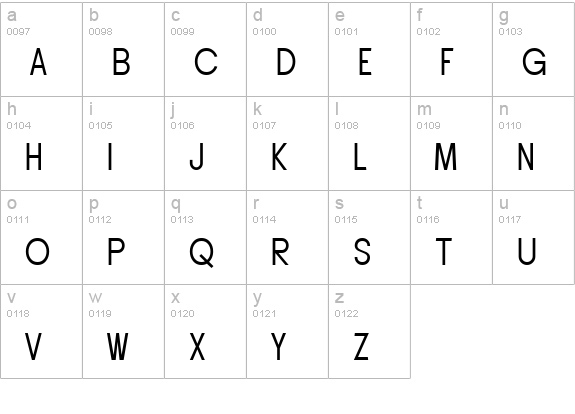
SF Buttacup Lettering Font Details
SF Buttacup Lettering is a stunning display font that exudes elegance and charm. Its unique letterforms are carefully crafted to capture the essence of classic lettering styles, while adding a contemporary twist. With its fluid lines and graceful curves, this font is perfect for adding a touch of sophistication to any design project. What sets SF Buttacup Lettering apart is not only its exceptional design, but also the fact that it is available for free. Yes, you read that right - this remarkable font can be downloaded at no cost on FontsMarket.com. Whether you are a professional designer, a hobbyist, or simply someone looking to add a touch of style to your personal projects, SF Buttacup Lettering is the perfect choice. This font is incredibly versatile and can be used for a wide range of design purposes. From logos and branding materials to invitations, posters, and social media graphics, SF Buttacup Lettering will make your creations stand out. Its clean and legible letterforms ensure readability, while its elegant and refined aesthetic will leave a lasting impression on viewers. SF Buttacup Lettering is not just a font, it's a work of art. Every character is meticulously crafted to perfection, ensuring a seamless and visually pleasing appearance. Its attention to detail and meticulous design make it a true gem in the world of typography. Don't miss out on the opportunity to enhance your designs with SF Buttacup Lettering. Visit FontsMarket.com today and download this extraordinary font for free. Let your creativity shine and elevate your designs to new heights with the timeless beauty of SF Buttacup Lettering.